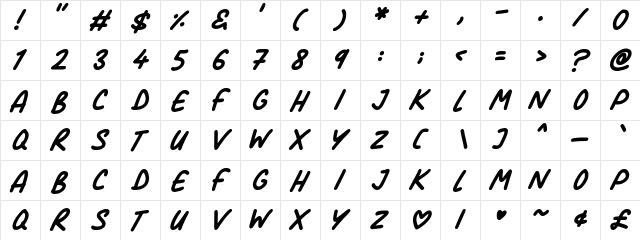
Comic Marker Deluxe Italic
Design Context for Comic Marker Deluxe Typeface
Comic Marker Deluxe has an approachable, lighthearted character — its loose, expressive forms are well-suited to children's content, casual branding, and fun-first design. The slanted form adds forward momentum and visual energy.
Font Pairing: Pairs well with a rounded or humanist sans for body copy, maintaining the friendly tone without relying on Comic Marker Deluxe to carry extended reading.
Pro Tip: Avoid using Comic Marker Deluxe for long passages of text — it works best for headlines, labels, and short calls to action.